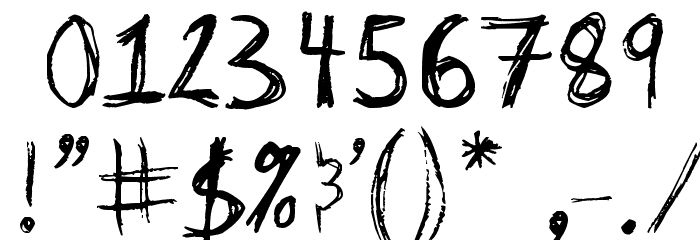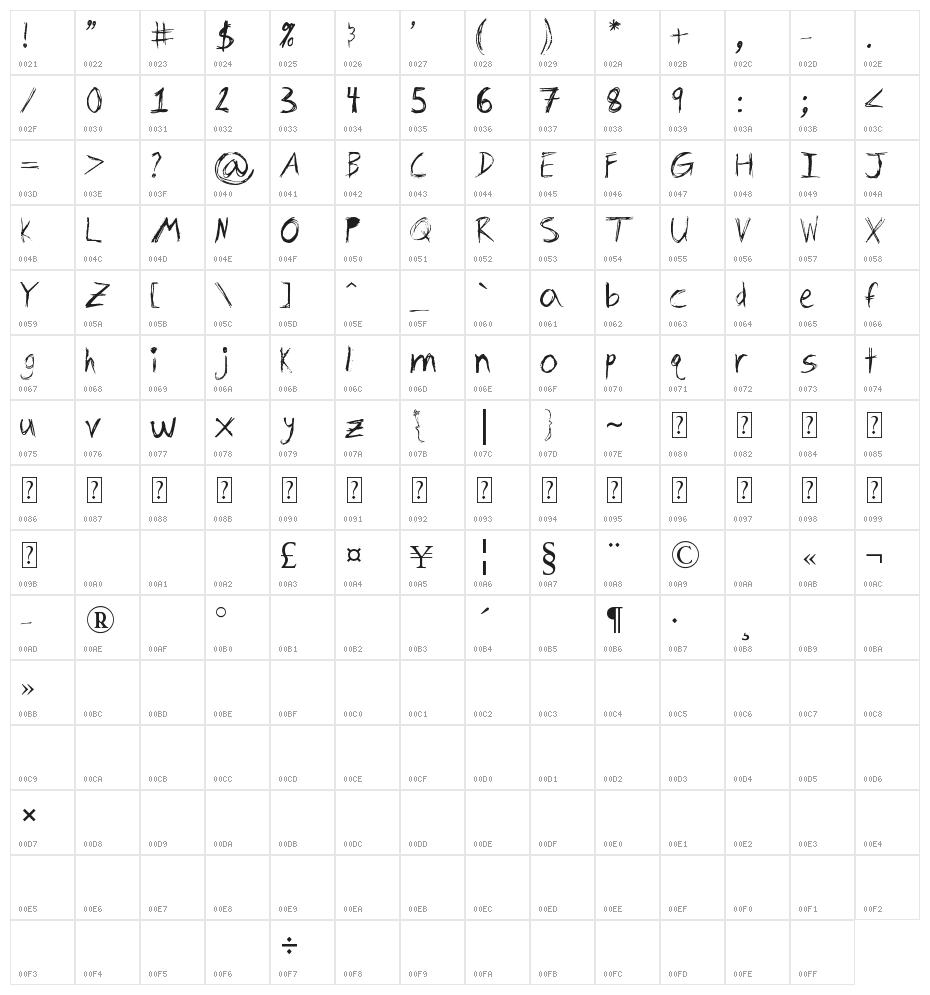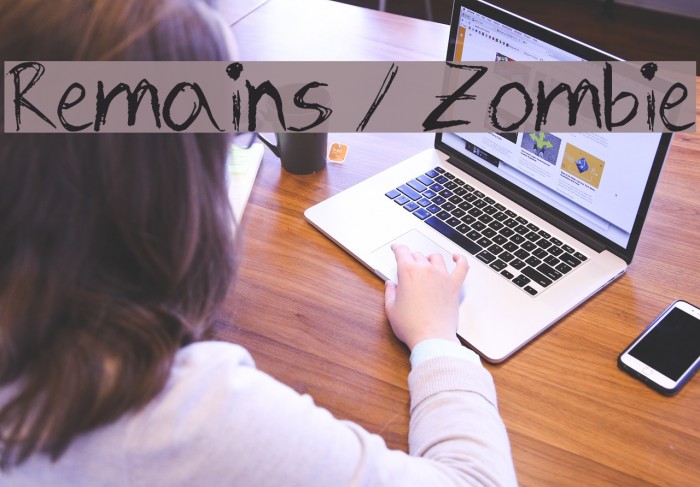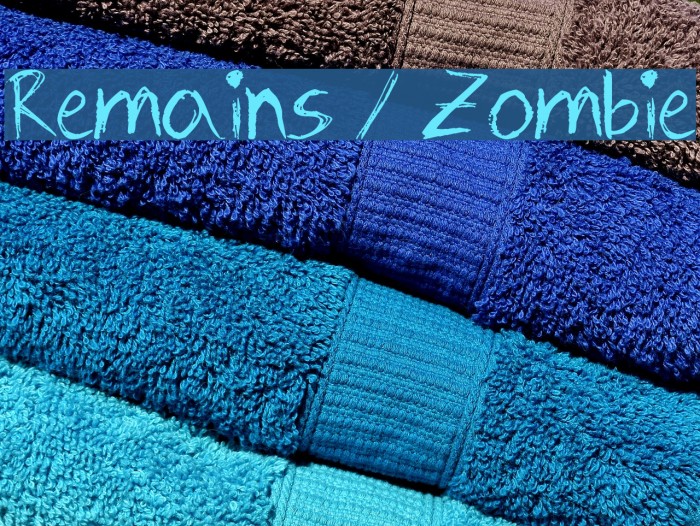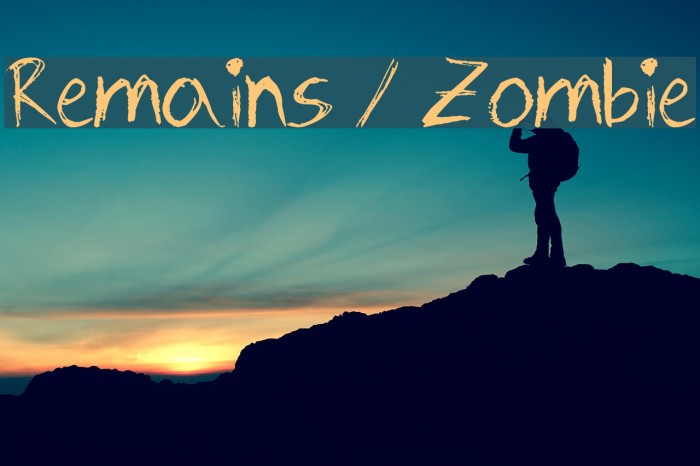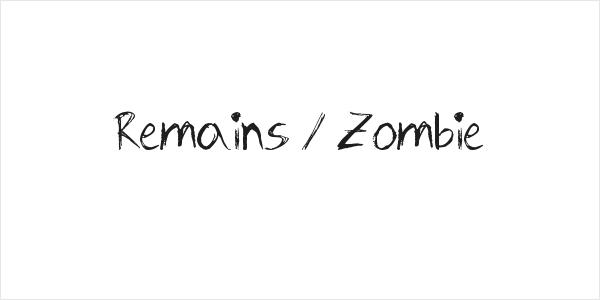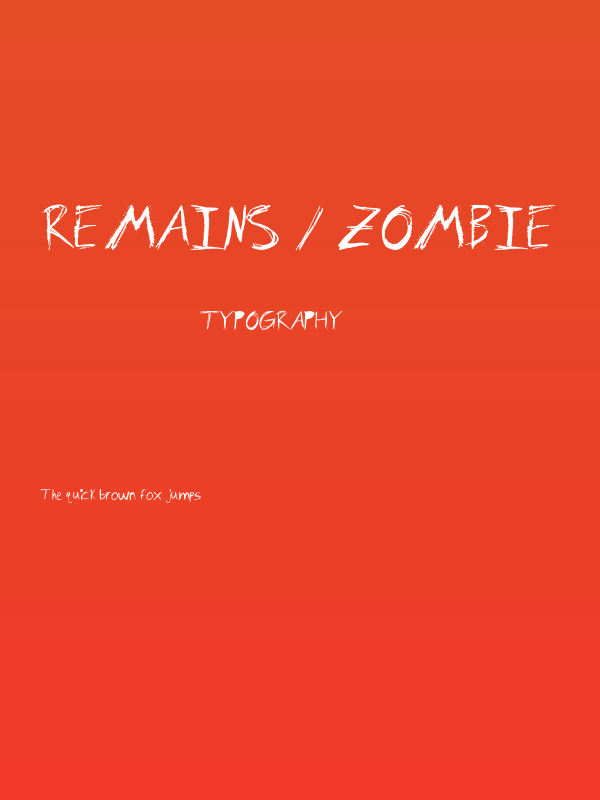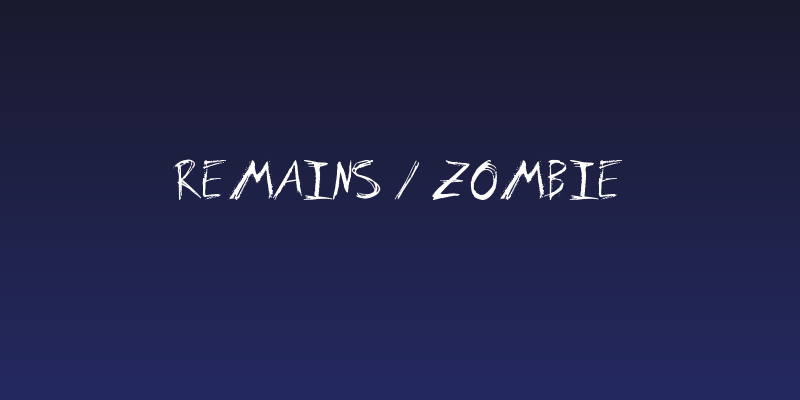
Remains / Zombie Font
Remains / Zombie Description
This font exudes a raw, edgy aesthetic with its distressed and uneven strokes, reminiscent of a horror or thriller theme. The characters appear as if they have been hastily painted with a brush, giving them a chaotic and dynamic feel. The uppercase letters are bold and commanding, while the lowercase letters maintain the same rugged style, ensuring consistency throughout. Numbers and special characters follow the same design principles, making this font versatile for various creative applications. Its unique style makes it stand out, perfect for projects that require a touch of the unconventional or eerie.
| Use Case | Headlines, Posters, Logos |
| Proposed Projects | Ideal for horror movie posters, Halloween event flyers, edgy album covers, or any project needing a dramatic and unconventional typeface. |